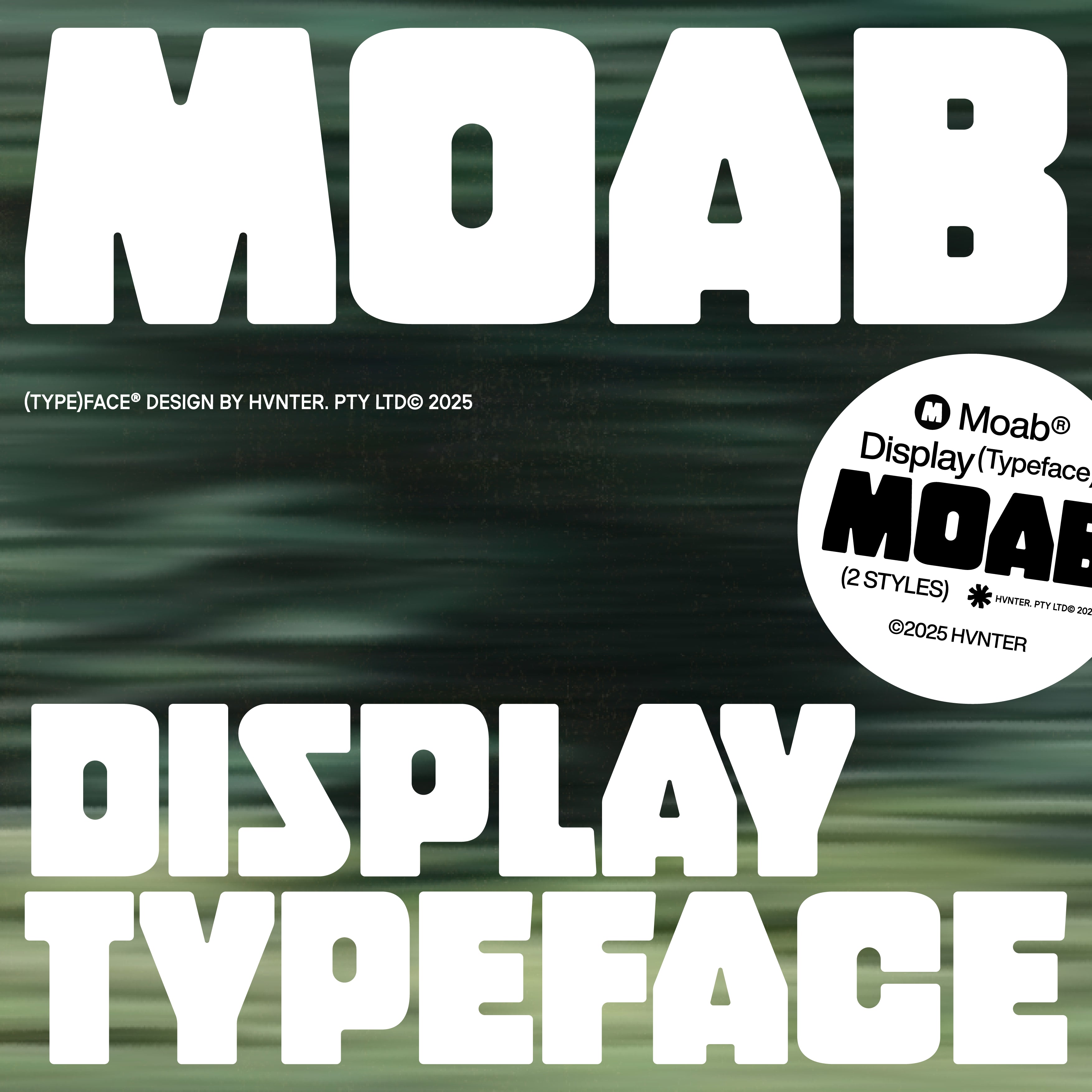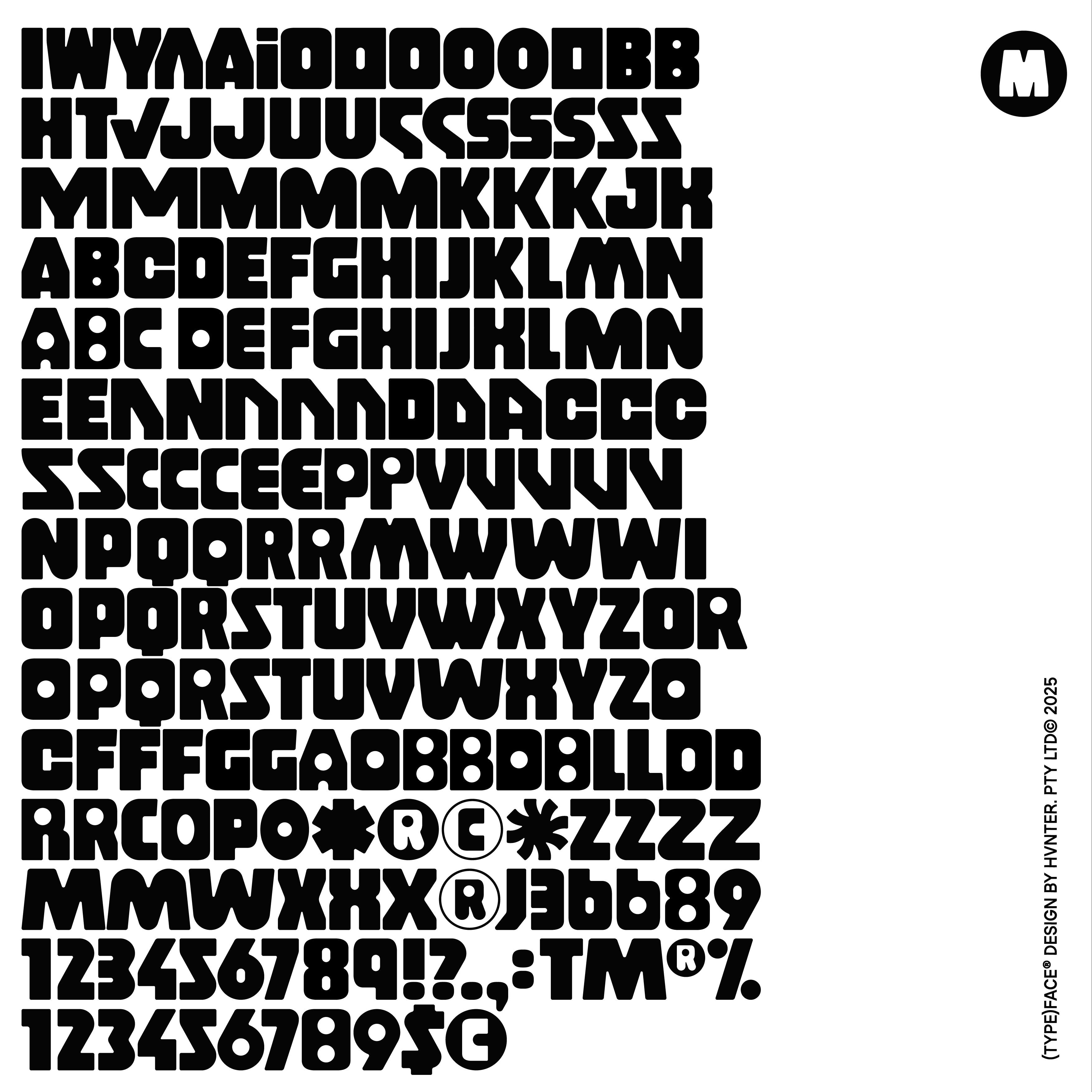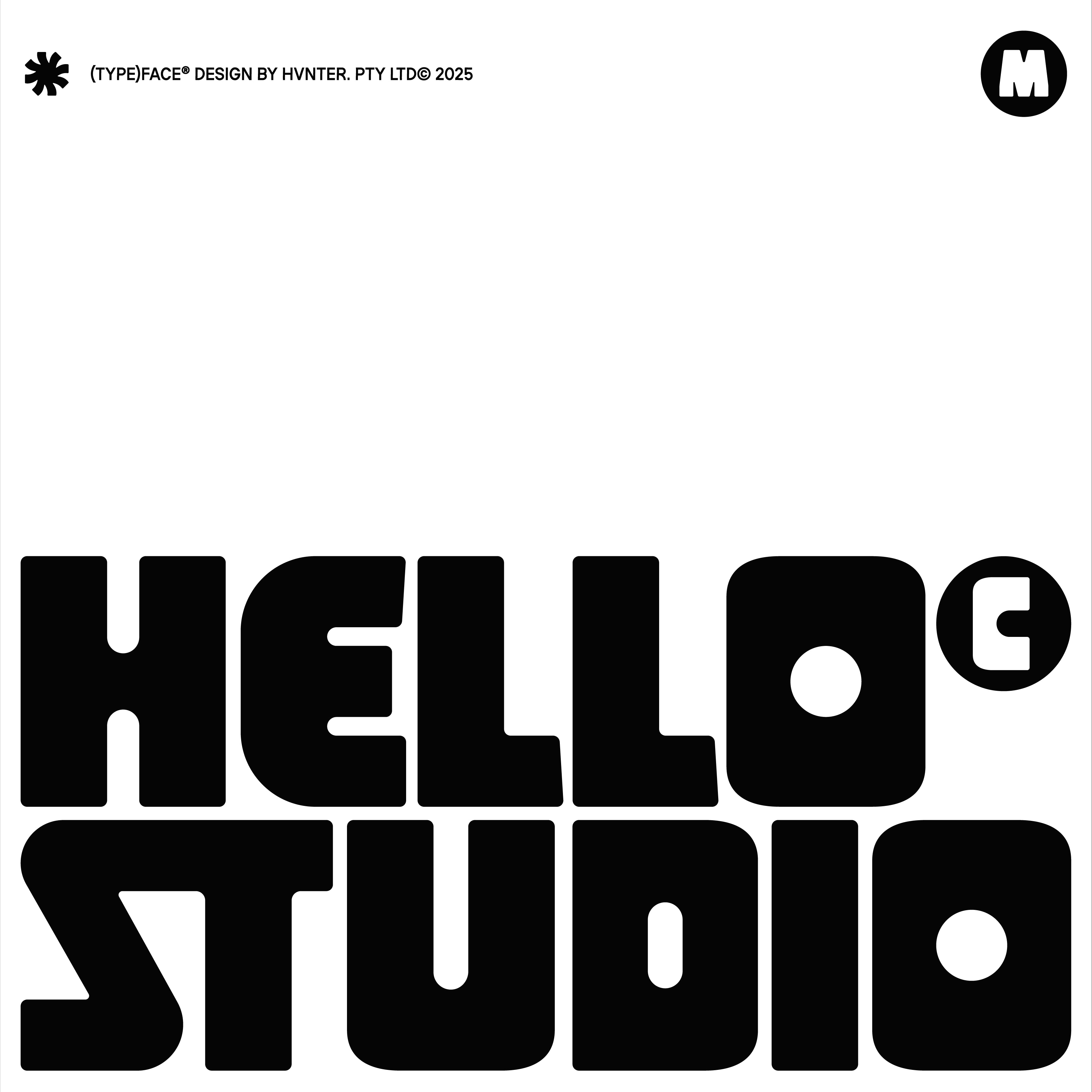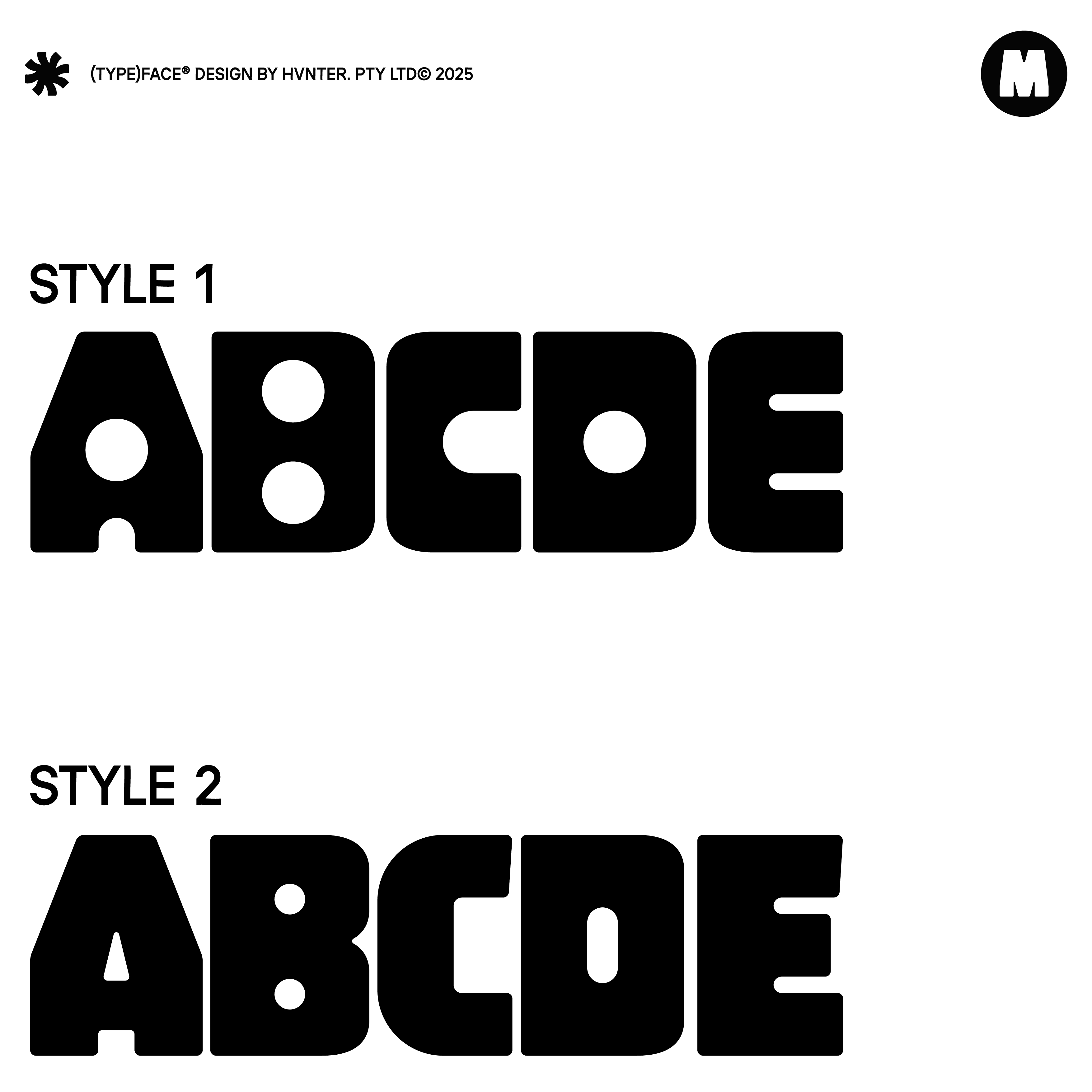
Moab Typeface
The Moab Typeface includes two styles, featuring A-Z, 0-9, and basic symbols, along with a variety of letter variations. It is categorized under tags such as hvnter, font, typeface, bold, and boxy.